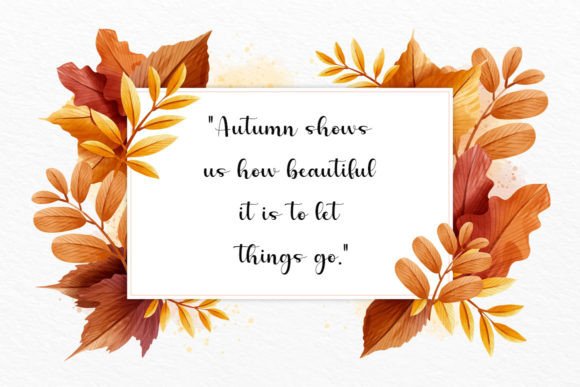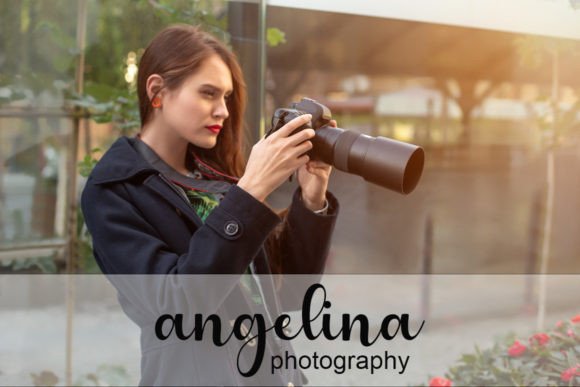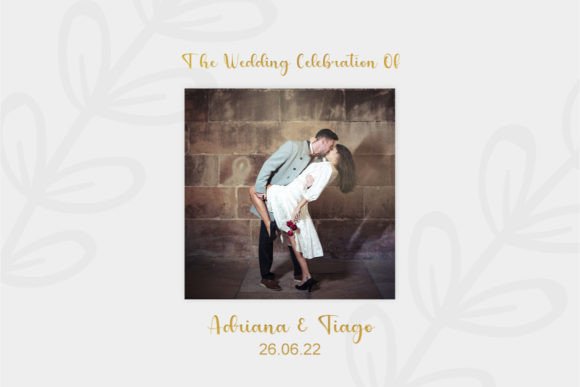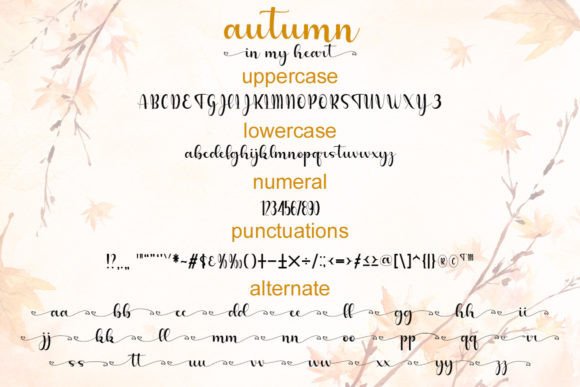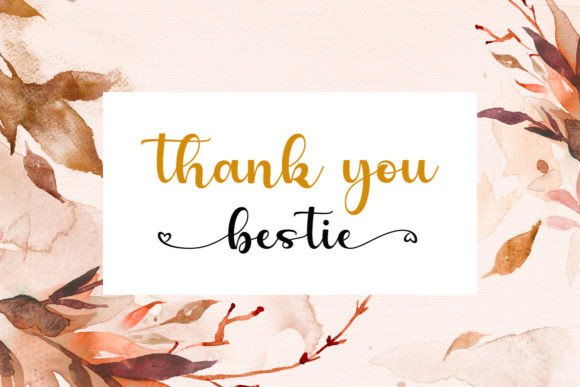
Discover the Charm of Autumn in My Heart Font
Are you a designer or crafter looking for a unique and captivating font to elevate your projects? Look no further than the Autumn in My Heart Font, an enchanting handwritten font that is perfect for a wide range of applications. From logos and branding to quotes, clothing, tote bags, business cards, and websites, this beautiful font is sure to leave a lasting impression.
What Makes Autumn in My Heart Font So Special?
Autumn in My Heart Font is a one-of-a-kind, handwritten font that exudes warmth, coziness, and romance. Its delicate, cursive strokes and intricate details evoke the feeling of a crisp autumn day, making it the perfect choice for projects that require a touch of whimsy and charm. Whether you’re creating a logo, branding materials, or social media graphics, this font is sure to add a level of sophistication and elegance.
One of the best things about Autumn in My Heart Font is its versatility. Its unique style makes it suitable for a wide range of projects, including:
- Logos and Branding: Create a lasting impression with a custom logo or branding materials that showcase your business’s personality and style.
- Quotes and Typography: Add a touch of elegance to your quotes and typography with a font that is both beautiful and easy to read.
- Clothing and Accessories: Take your fashion designs to the next level with a font that is perfect for t-shirts, hoodies, tote bags, and more.
- Business Cards and Stationery: Make a great impression with custom business cards and stationery that showcase your personal style.
- Websites and Social Media: Elevate your online presence with a font that is both visually appealing and easy to read.
Why Choose Autumn in My Heart Font?
- Unique and Eye-Catching: This font is unlike anything you’ve seen before. Its unique style is sure to grab attention and leave a lasting impression.
- High-Quality: Autumn in My Heart Font is a high-quality font that is designed to look great in any application.
- Versatile: As mentioned earlier, this font is suitable for a wide range of projects, making it a great addition to any design library.
Tips for Using Autumn in My Heart Font
- Use it Sparingly: While this font is beautiful, it can be overwhelming if used too much. Use it sparingly to create a lasting impression.
- Experiment with Colors: This font looks great in a variety of colors, so don’t be afraid to experiment and find the perfect hue for your project.
- Pair it with Other Fonts: Autumn in My Heart Font pairs well with a variety of other fonts, so try pairing it with a bold font for added contrast.
| Font Name | Autumn in My Heart Font |
| Author | cavalera creative |